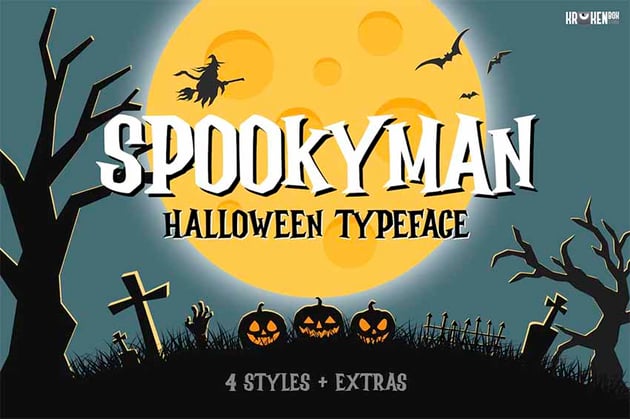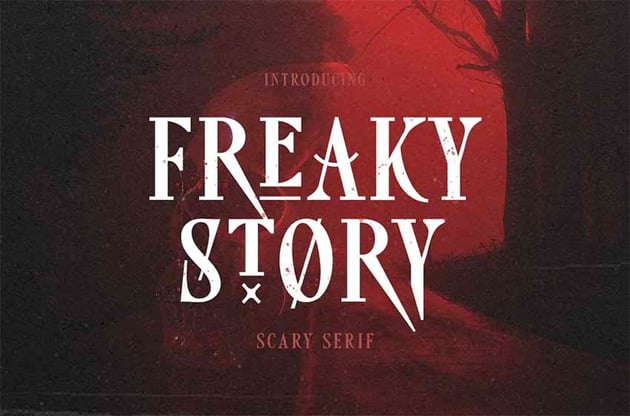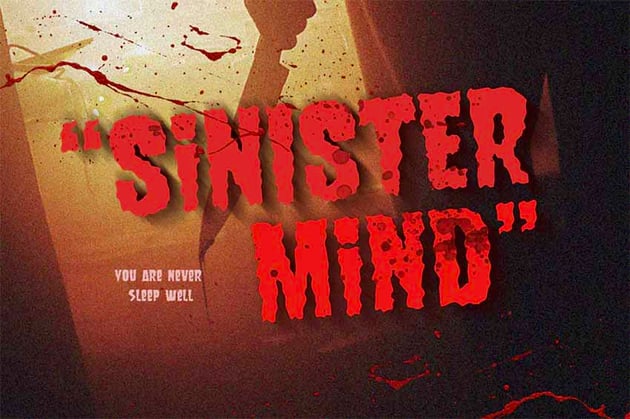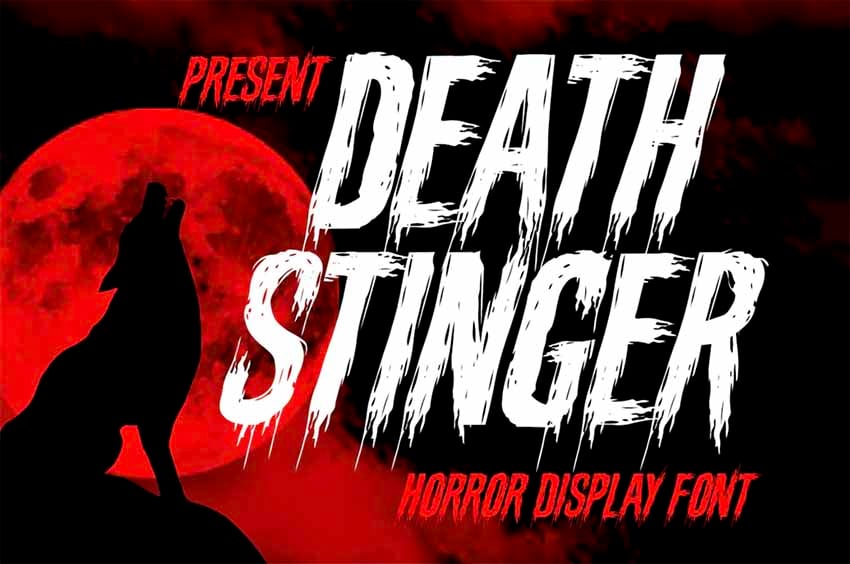
29 Horror-Inspired Fonts
Ready to create the perfect scary movie title or Halloween party invitation? Check out this collection of the best horror fonts from Envato Elements.
Top Horror-Inspired Fonts
1. Exorcist: Horror Movie Fonts (OTF, TTF, WOFF)
Named after the famous movie, the Exorcist horror font gives off a spooky vibe. Not only does it include the Latin alphabet and punctuation, but this horror film font also has a full number set. Try out Exorcist for your Halloween promos or movie posters.
2. Sorrow Scary Font Styles (OTF, TTF)
This scary text font is enough to chill the blood—or at least enough to drive traffic to your scary-good online deals in the fall. Sorrow is great for physical promotions too. Thanks to its large size, it's the perfect display font for posters.
3. Jacmax Horror Font (OTF, TTF, WOFF)
Are you creating a short horror film and need the perfect creepy writing font for its poster? Then enter Jacmax. This zombie movie font is designed for displays. Jacmax also doubles as a creepy font for online use. It's easy to use on PC and Mac computers.
4. Dark & Black Scary Text Font (OTF, PNG)
Not every horror movie font needs jagged edges and slashing strokes to create a scary effect. Just look at Dark & Black, for instance. It looks both refined and creepy. Try out this eighties horror font for a chilling Halloween-themed commercial or personal project.
5. Gallow Tree Old Horror Movie Poster Font (OTF, TTF)
Font designers know how to set the mood. And Gallow Tree is an old horror movie poster font that knows it's spooky! Create the coolest Halloween poster around or decorate your products with unique details. Set a mood that no one will forget with this typeface.
6. Covenant Creepy Letter Fonts (OTF)
Some creatives get inspired by their favorite scary movies. And this old horror movie poster font is certainly no different! Covenant features an intense design with long letters and a lot of creepy energy. Thrill your audience with this mysterious, creepy writing font.
7. Horror Joys Scariest Fonts (OTF, TTF, EPS, AI)
A clever contradiction, the Horror Joys font is packed with tons of energy. It's a handmade typeface that aims at delivering scary vibes and includes additional blood splatters to help. Use this horror film font on cool posters, apparel, and more.
8. Story Brush Font (OTF, TTF)
Embrace those nostalgic vibes with the Story Brush font. Created with a cool comic book style, this horror movie font features over 240 glyphs. Complete your comic books with this incredible font and enjoy its retro charm.
9. Broken Wings Font (OTF, TTF, JPG)
Specifically designed with a heavy heart, Broken Wings is a creepy font that makes us want to know more. Its chunky style features ragged edges and handmade characters. It will make any design stand out, so choose your canvas wisely.
10. Harry's Brush Font (OTF, TTF)
Harry's Brush font is a highly detailed typeface featuring energetic brush strokes. It looks awesome on any T-shirt design and is suitable for posters, signs, and video transitions. Use this horror movie font to help tell your spooky story with one simple download.
11. Primal Font (OTF, WOFF)
Rely on your primal instincts with this compelling horror film font. Featuring a science-fiction-inspired theme, this old horror movie poster font is designed with clean, bold letters. Like many modern fonts, the design plays with empty spaces for more impact.
12. In The Wood Font (OTF, TTF)
Whatever you do, don't go into the woods! A hardly inviting font, this typeface somehow manages to draw you in. The design features tall, lurking letters with distressed details for that antique look. Download this creepy font today to use it for your projects.
13. Black Rose Font (OTF, TTF)
Black Rose has a sinister, yet appealing undertone. It's a handbrush typeface with long strokes and plenty of character. Download it now to get access to letters, symbols, and ligatures. You'll definitely want this horror font!
14. Manticore Brush Font (OTF, WOFF)
Handwritten fonts are often designed with subtle notes of horror. Grunge is a style that gets the job done, like this brilliant Manticore font. A brush style typeface with punk details, this eighties horror font works best with urban-themed graphics.
15. Ghoul Typeface (OTF, WOFF)
A creepy writing font for the dead or living, Ghoul delivers a simple, yet mighty punch. This font features thick, handmade letters that work well for captions and titles. Create the best Halloween posters with the Ghoul typeface.
16. Nigma Brush Font (OTF, WOFF)
Nigma is bold and daring. It's a handwritten horror font with hurried letters and strokes. Try it out for a bold design that leaves your audience wanting more. Transform your quotes and typography with this horror-inspired font.